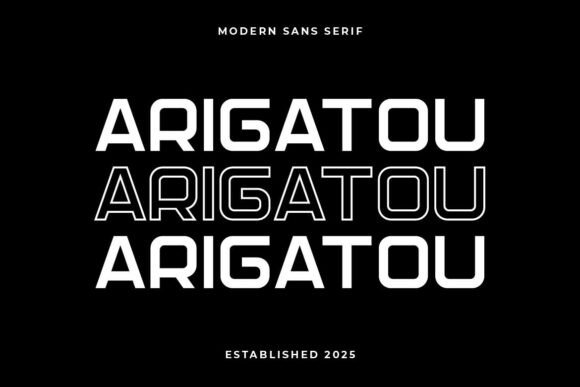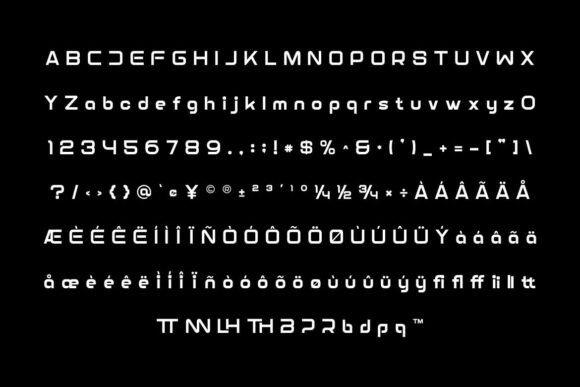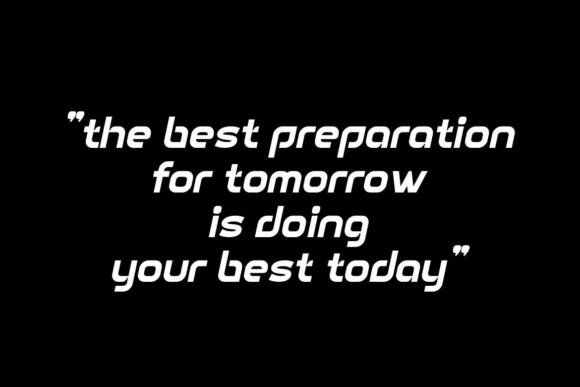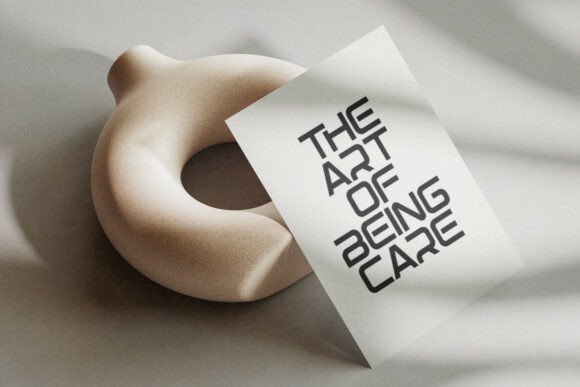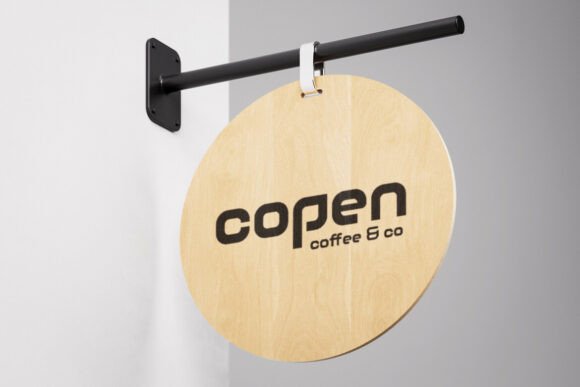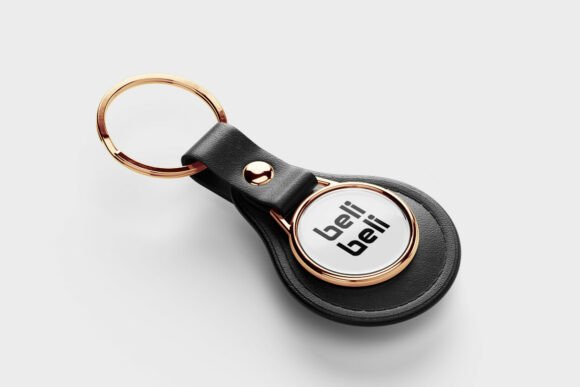
Introduction to Molire Font
Molire is a stylish creative sans serif font designed to bring fresh character and contemporary charm into any project.
| 👤 Author | Artiveko |
With its clean lines, soft geometric structure, and subtle artistic touches, Molire delivers a balanced mix of simplicity and personality — perfect for modern branding, editorial layouts, logos, packaging, and social media visuals .
Key Features of Molire Font
Why Choose Molire Font?
Molire Font offers exceptional quality and versatility, making it a valuable addition to your design toolkit. Whether you’re creating for personal projects or commercial use, Molire Font delivers professional results.